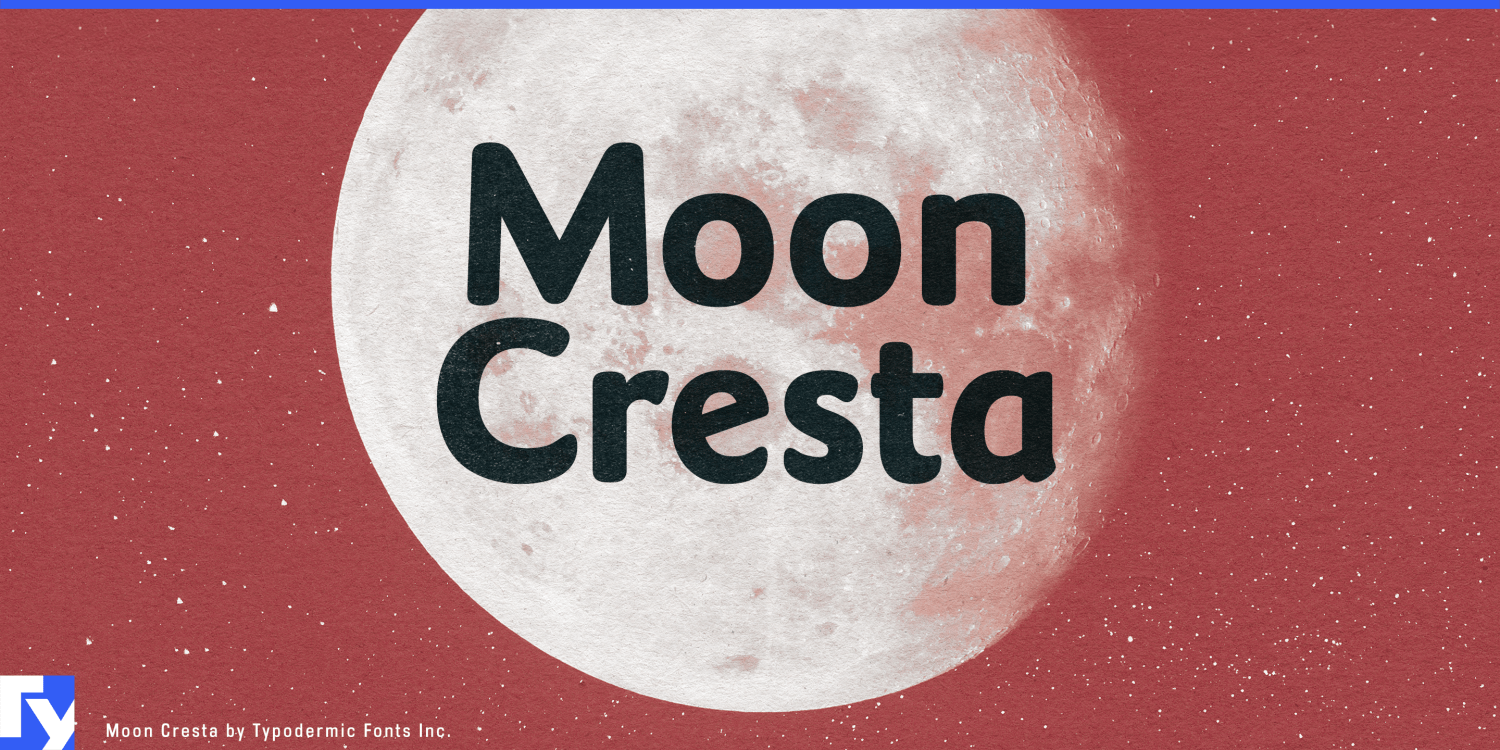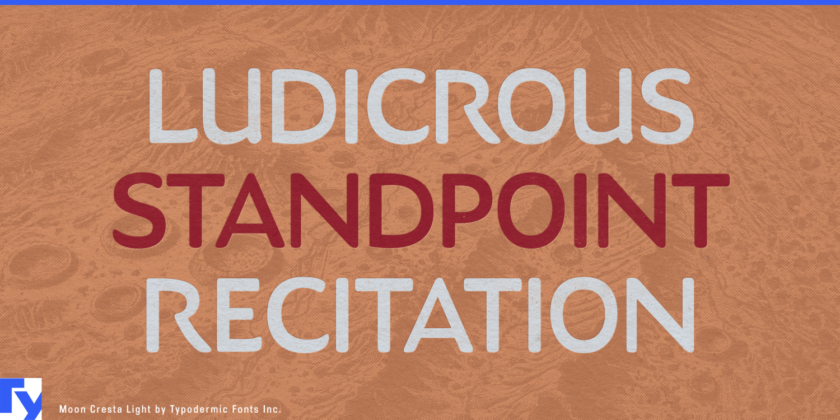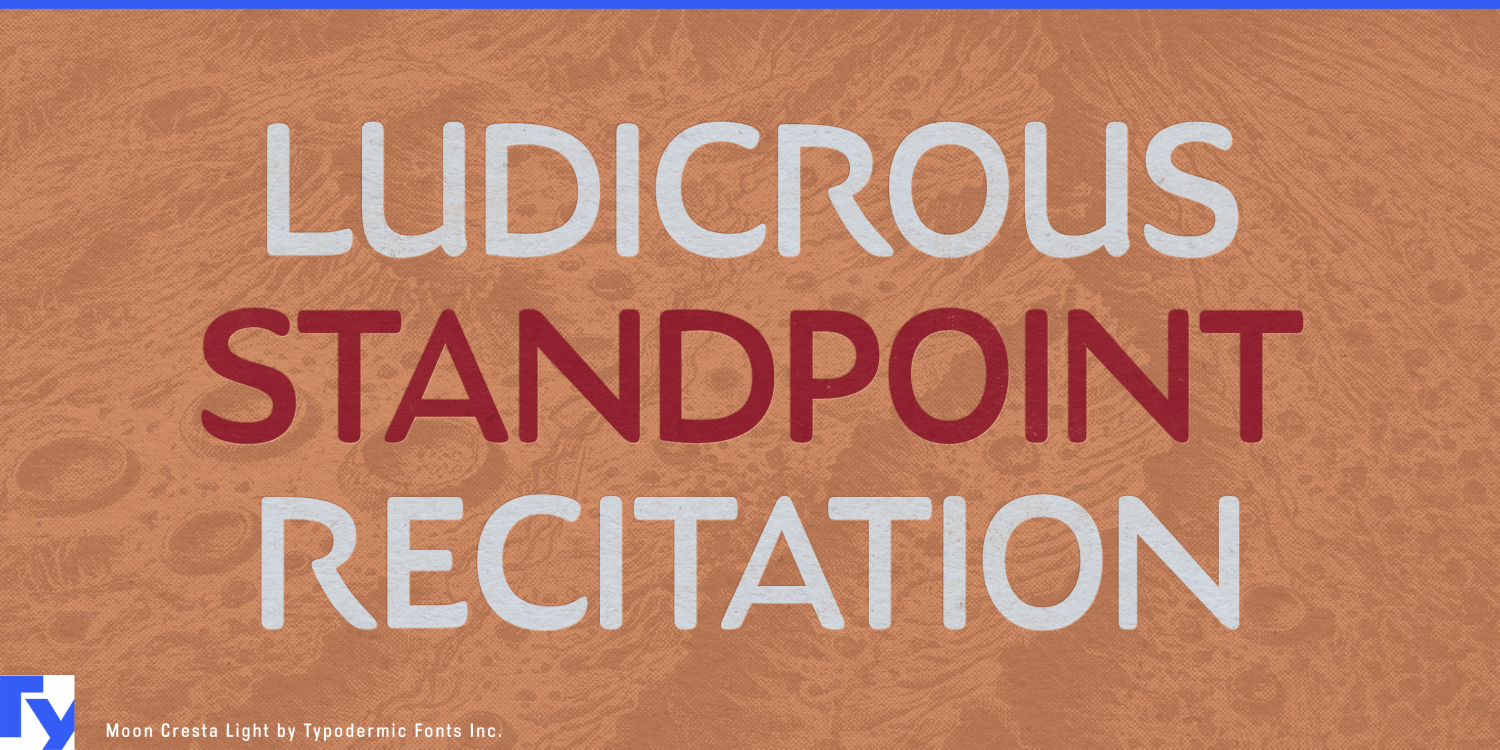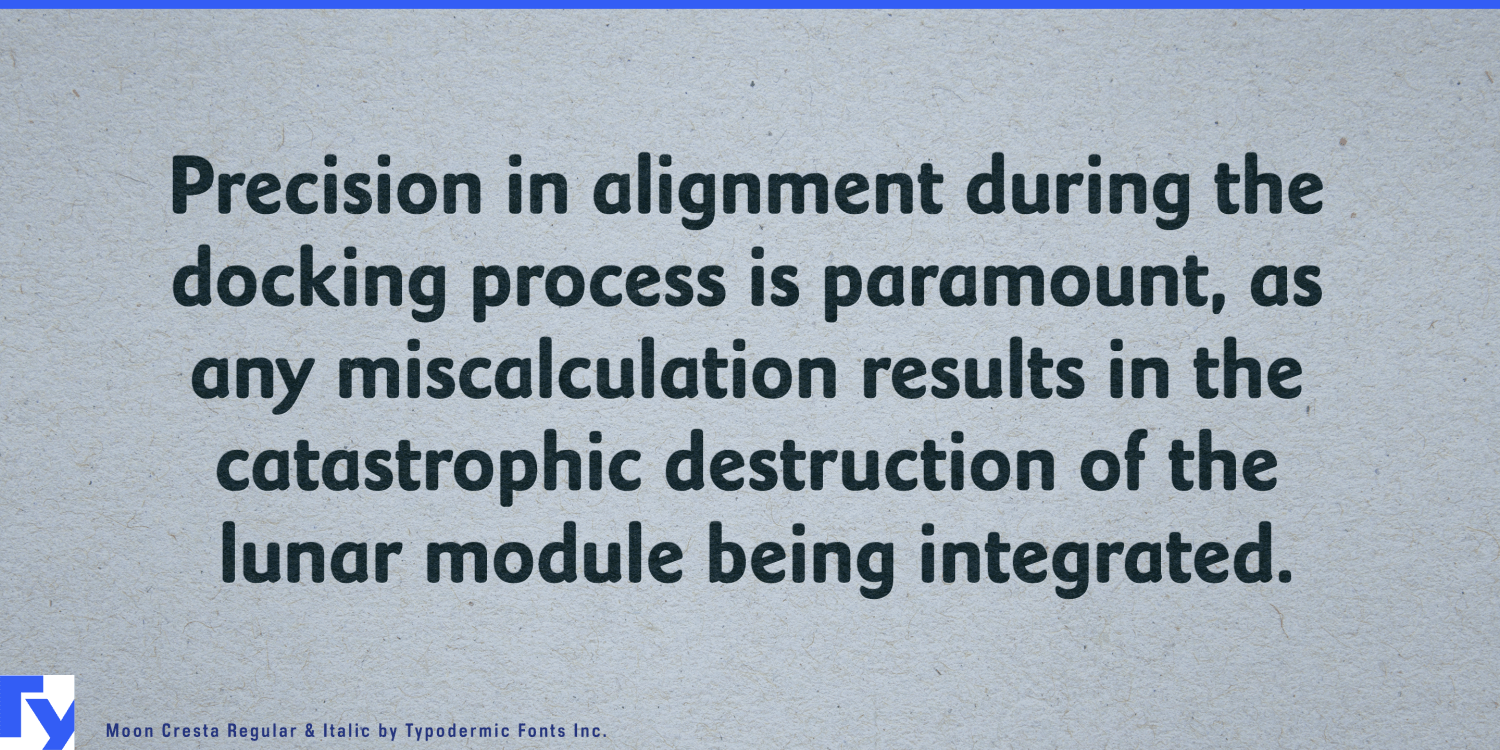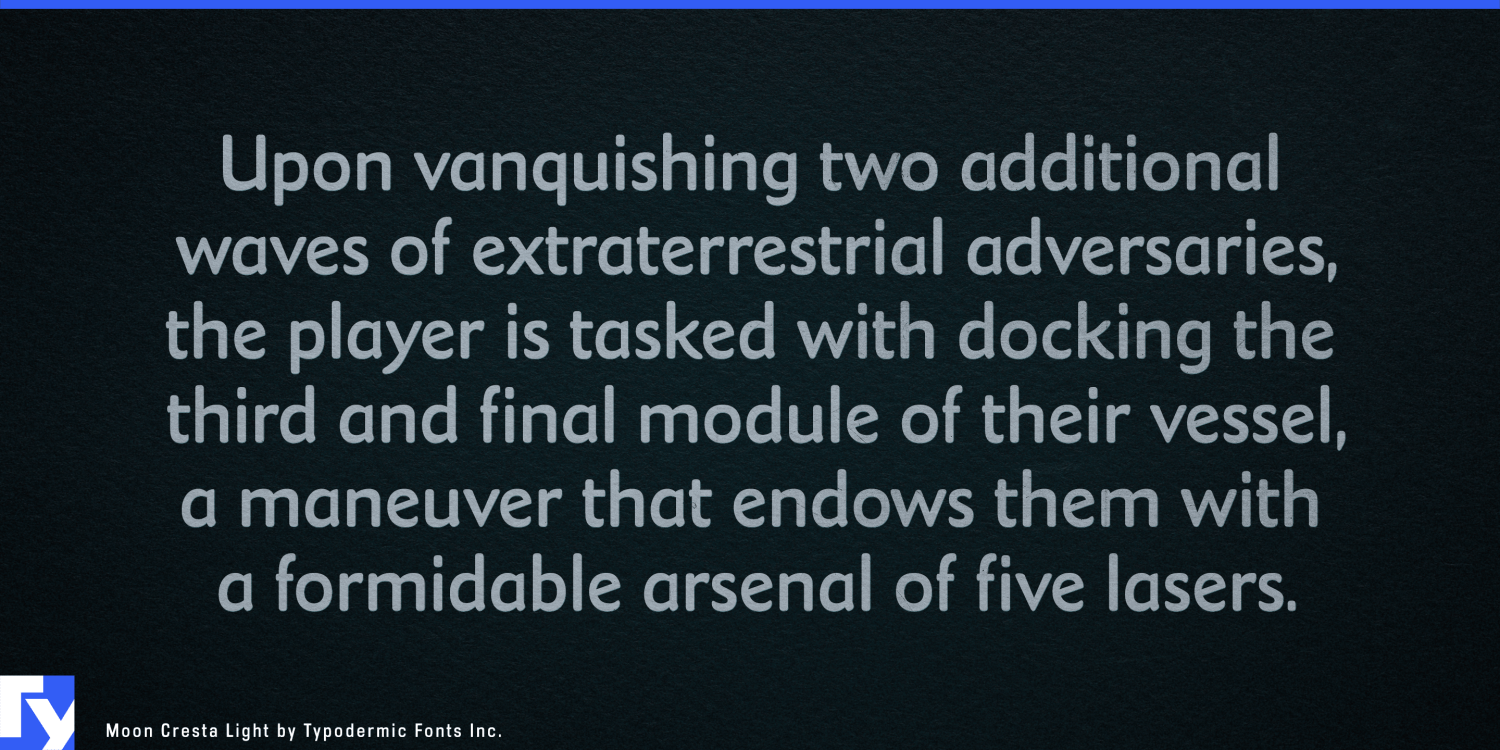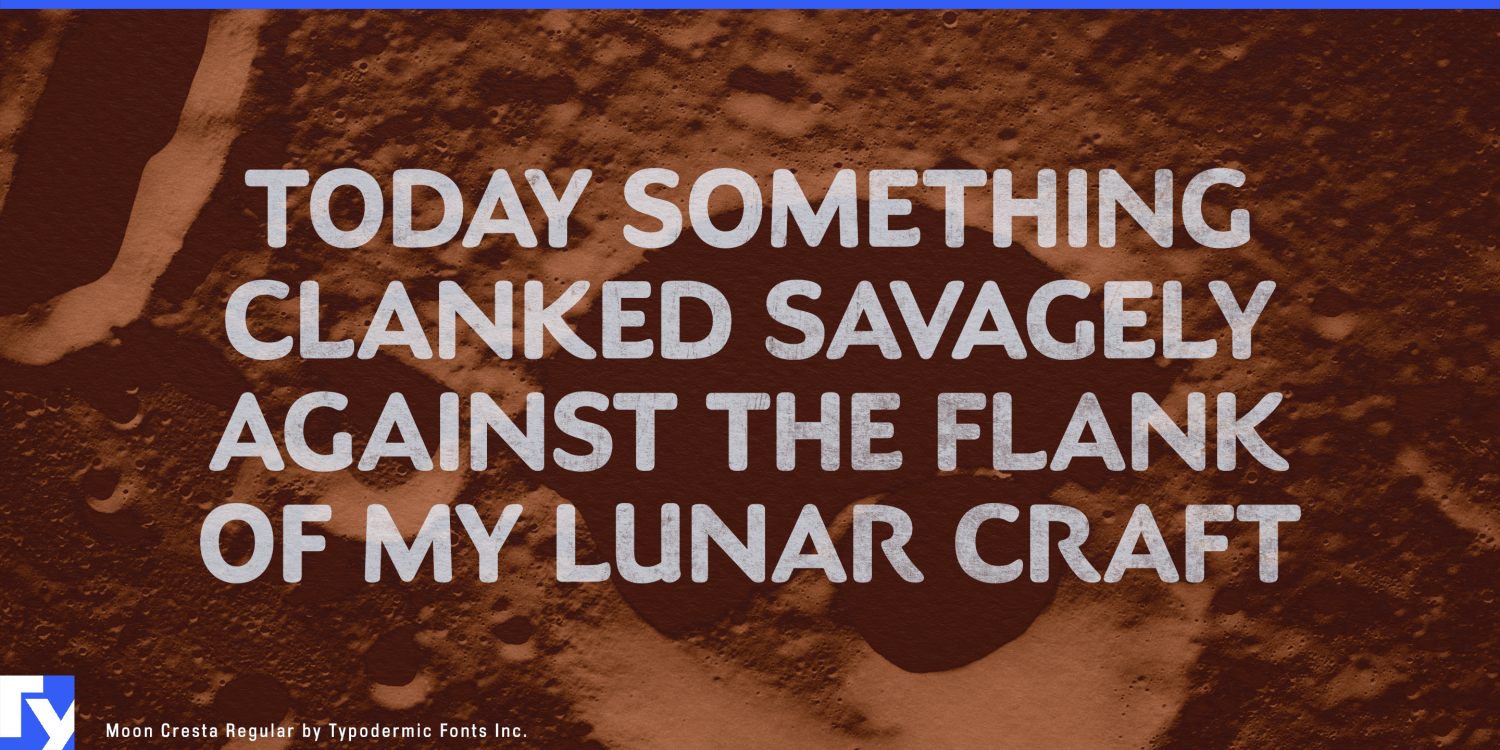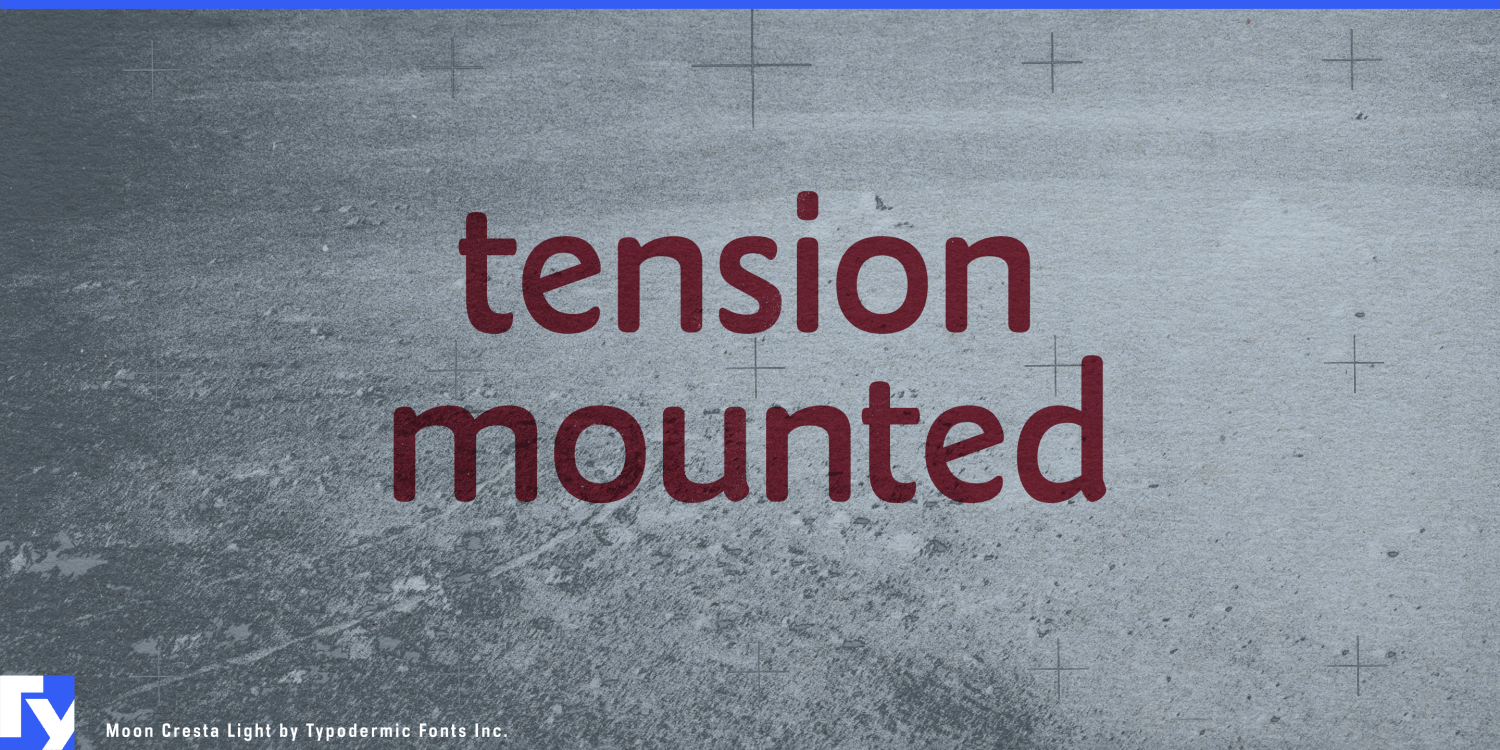
Moon Cresta
About Moon Cresta
Moon Cresta beckons designers with its soft, celestial charm—a typeface that gracefully bridges the gap between timeless elegance and modern minimalism. Drawing inspiration from the revered Goudy Sans, Moon Cresta reimagines classic forms with a…